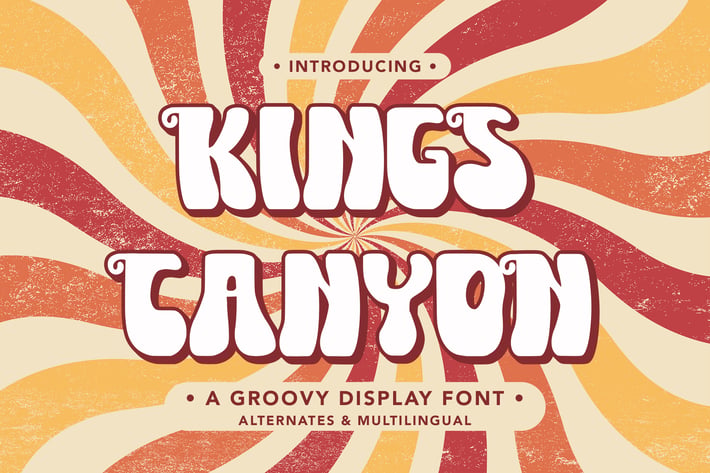
KingsCanyon - A Groovy Display Font
KingsCanyon - A Groovy Display Font contains a lowercase, uppercase, symbol, and also supports multi-language. There’s a lot of ligature in this font. KingsCanyon - A Groovy Display Font also comes with ligatures, stylistic alternates and many more.
this font suitable for fashion, branding, catalog and other design that you want.